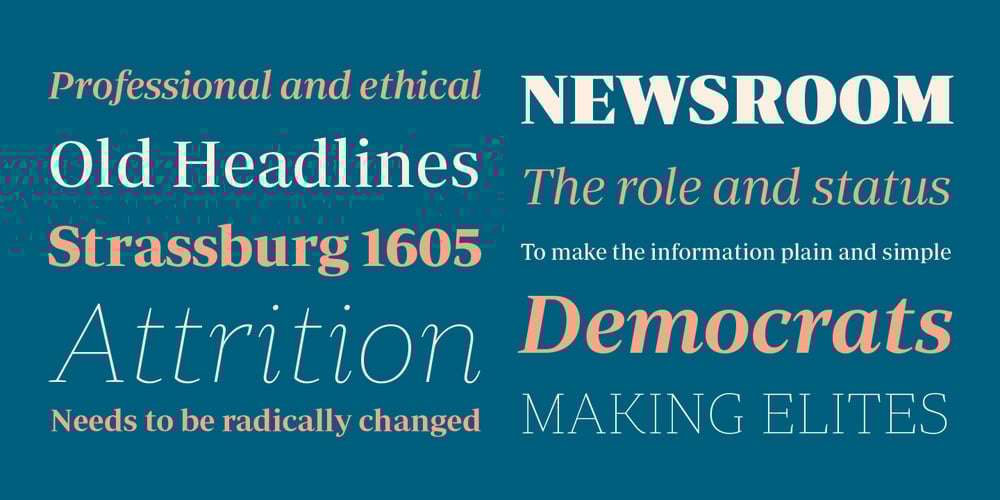
Periodico
Periodico font
Periodico Font Family was designed by Eduardo Manso and published by Emtype Foundry. Periodico contains 30 styles and family package options. Periódico (newspaper in Spanish), was originally commissioned by the Spanish daily newspaper ABC. Inspired by old Spanish typographic engravings, mostly from the second half of the 18th Century, we picked out the most relevant details of Spanish typography as the source of that inspiration, and instead of making a revival or an interpretation of these models, we started from scratch to create a truly original font family. The goal was to achieve a very distinctive family, functional and versatile at the same time, and reminiscent of old Spanish typography. Although we have borrowed many details from the old Spanish typography, like the nail, which is present in the letters U, G, or J, which we worked and evolved in order to be applied on other letters, we have also left behind several others. One example is the tilde of the ñ engraved by Gerónimo Gil, a very distinctive element of Spanish typography that was intentionally omitted for being too atypical to be used in a contemporary font. The letters a and g are probably the most distinctive of the Periódico family. The shape of the bowl in the letter a, with the top arch in diagonal position, is very characteristic of old Spanish types. In Periódico, we emphasized this detail by applying it to many other letters (such as g, j, and t) up to a point that it became the leitmotiv of this family. The formal finish of serifs and terminals is something that gives great personality to any typeface, so we came up with plenty of alternatives in order to find the exact shape we wanted: sober, elegant, and contemporary. Even though the serifs are geometric, the upper terminals have a curve with a dynamic very similar to the arch in the a or the notch in the j. The terminals in the capitals follow the same style, but, in this case, the inspiration comes from Pradell’s Missal, which on the other hand has been influenced by the types engraved by Johann Michael Fleischman in the Netherlands. Eighteenth-Century types were mostly used for printing books. Therefore, they had very generous proportions (large ascendents and descendants) and high contrast, but today, these characteristics do not work well in newspapers because of the worldwide demand for more space-saving fonts. The adaptation of the type’s proportions to be used for a newspaper was one of the most interesting parts of the project, specially the time taken to find the perfect balance between the x height and legibility. Periódico is presented in 30 different styles, for a total of 30 fonts—10 for text (from Light to Bold) and 20 for display sizes (from Thin to Ultra Black); this family results in an extensive system capable of solving all the needs of a large publication.